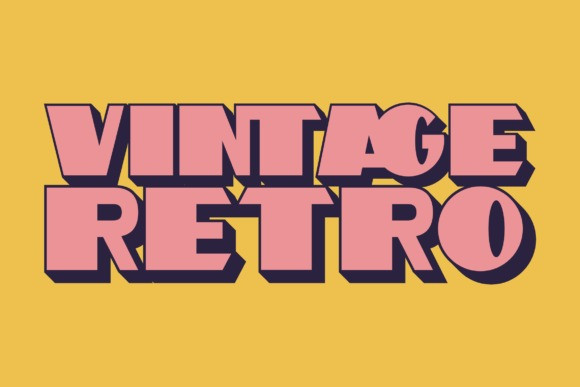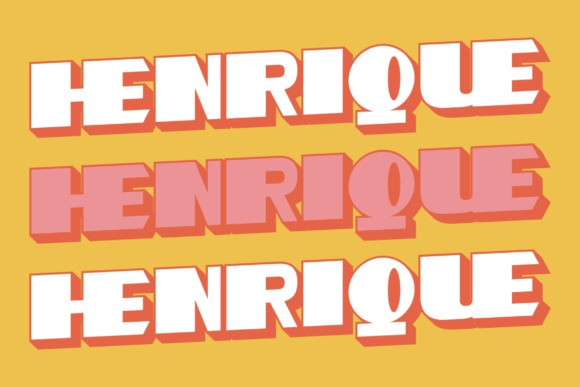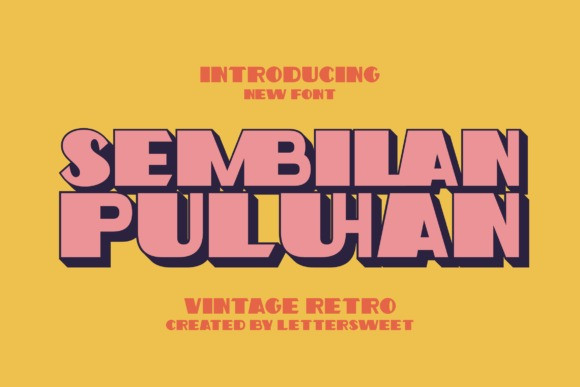
Sembilan Puluhan Font
Sembilan Puluhan Font feels playfully nostalgic and delivers an incredible vintage retro aesthetic. Use this display font to add that special retro touch to any design idea you can think of! This font has the potential to bring each of your creative ideas to the highest level!